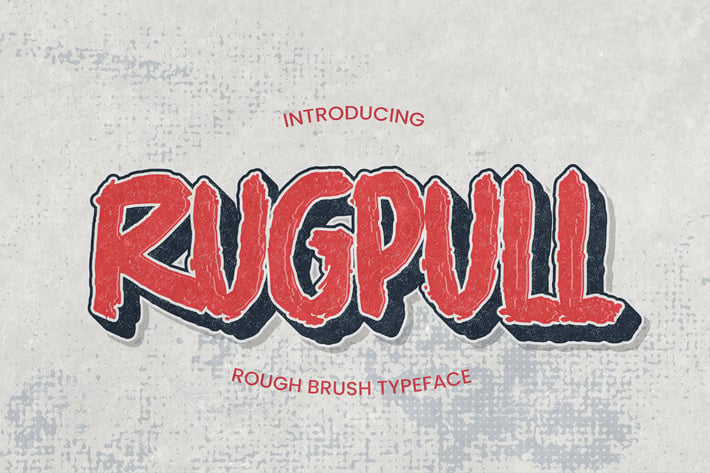
Rugpull - Rough Brush Typeface
Rugpull - Rough Brush Typeface and dramatic movement with ligature and Multilanguage support. This font is great for your next creative project such as logos, printed quotes, invitations, cards, product packaging, headers, Logotype, Letterhead, Poster, Label, cartoon, and comic etc.
+ Ligature
+ Multilingual